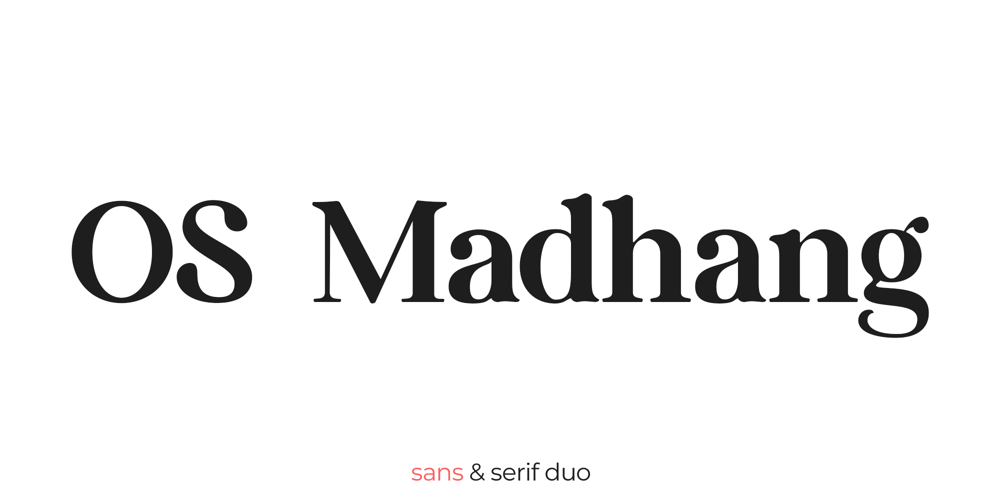
OS Madhang
OS Madhang font
OS Madhang Font Family was designed by Intan Driyo and published by Onje Studio. OS Madhang contains 2 styles and family package options. OS Madhang Font Duo | Eclectic sans and serifMadhang is a modern sans and serif duo that makes your layout, headlines, or brand design more beautiful and fancy!—————————————————————Features: 2 Styles (Sans serif & Serif) Uppercase, Lowercase Stylistic Alternate Numeral, Symbol, Punctuation Accents Adobe Latin 3